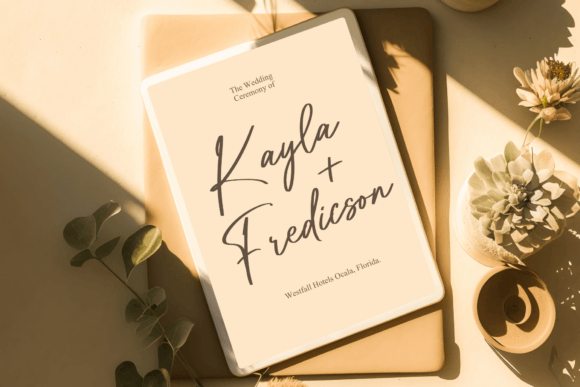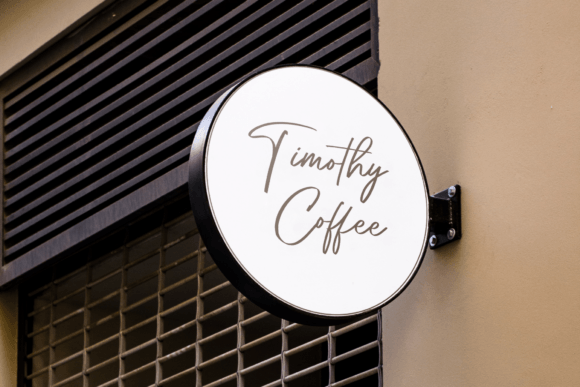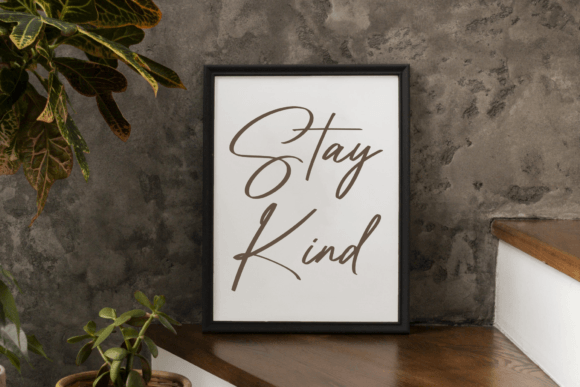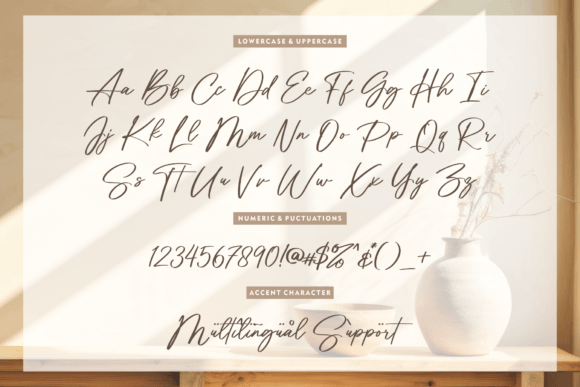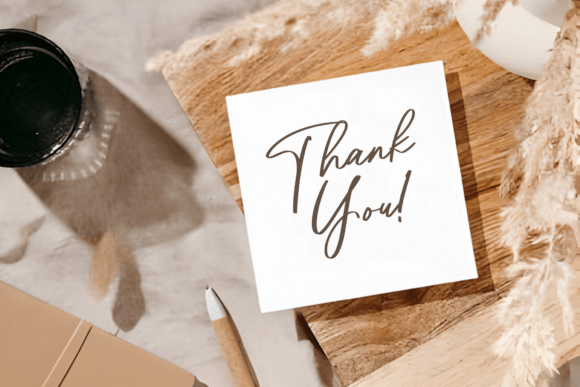
Introduction to Fatmine Signature Font
Introducing the Fatmine Signature Font, a creation of Essentials Studio.
This font, with its elegant signature style, is ideally suited for wedding themes and crafting ventures Its charming aesthetic and smooth flourishes make it an exquisite addition to your typography library.
Key Features of Fatmine Signature Font